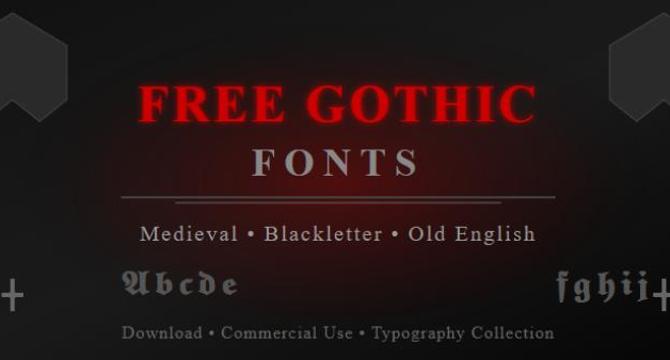
Free gothic fonts have become popular for designers seeking to add drama and historical charm to projects.Gothic typography originated in the 12th century for religious manuscripts, offering commanding visual presence.Gothic fonts can transform the mood of designs, suitable for various projects like movie posters and invitations.Strategic use of gothic fonts in modern design enhances branding and visual appeal, with color choice playing a crucial role.